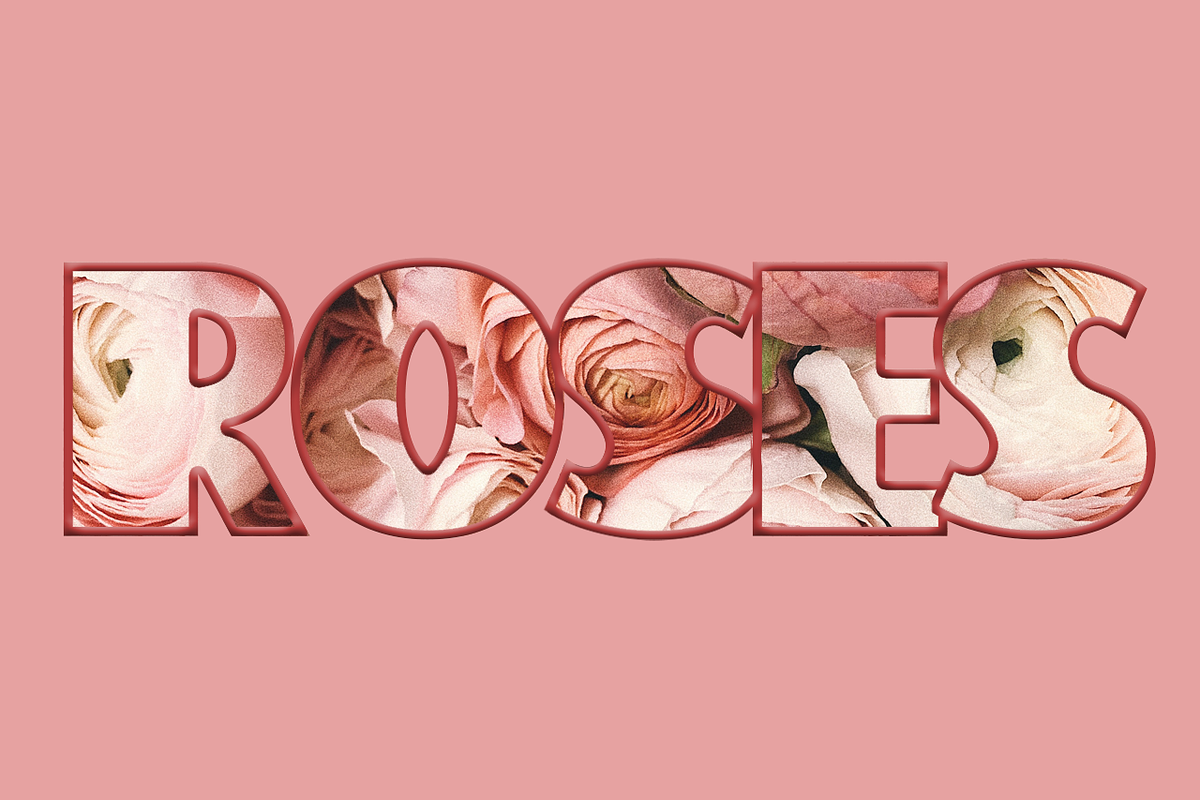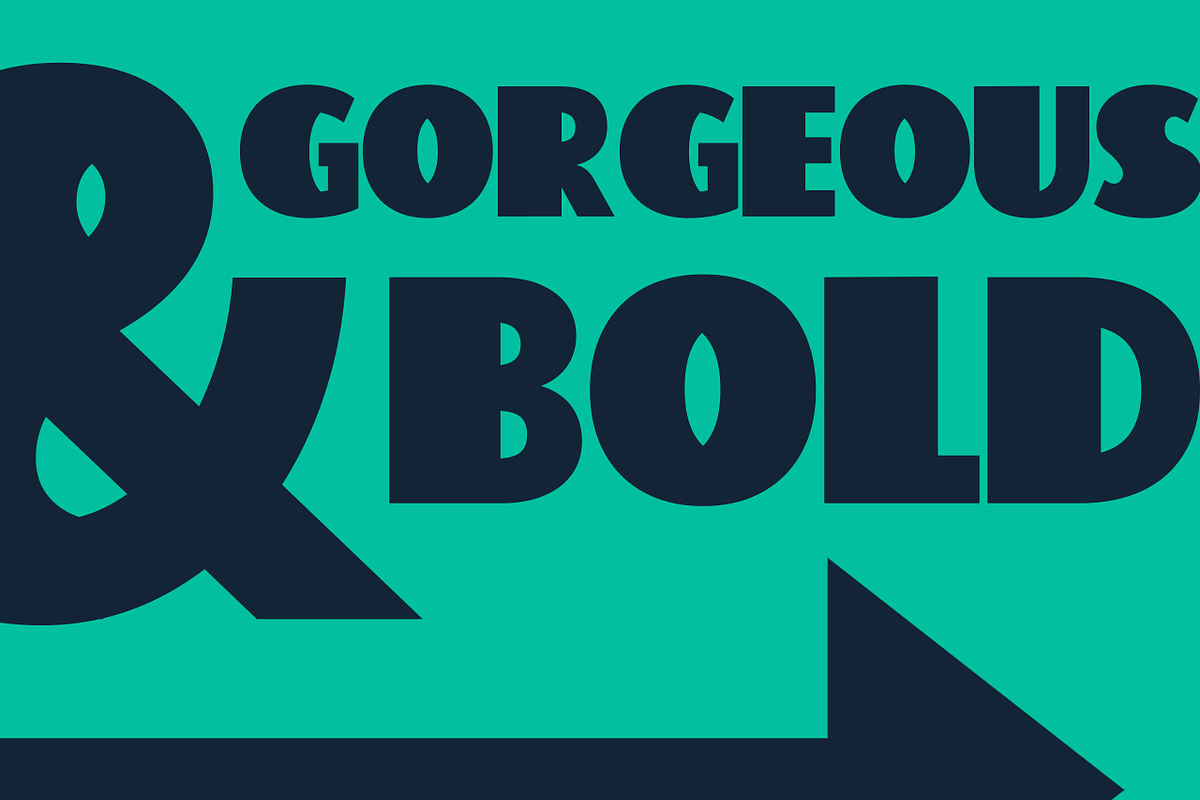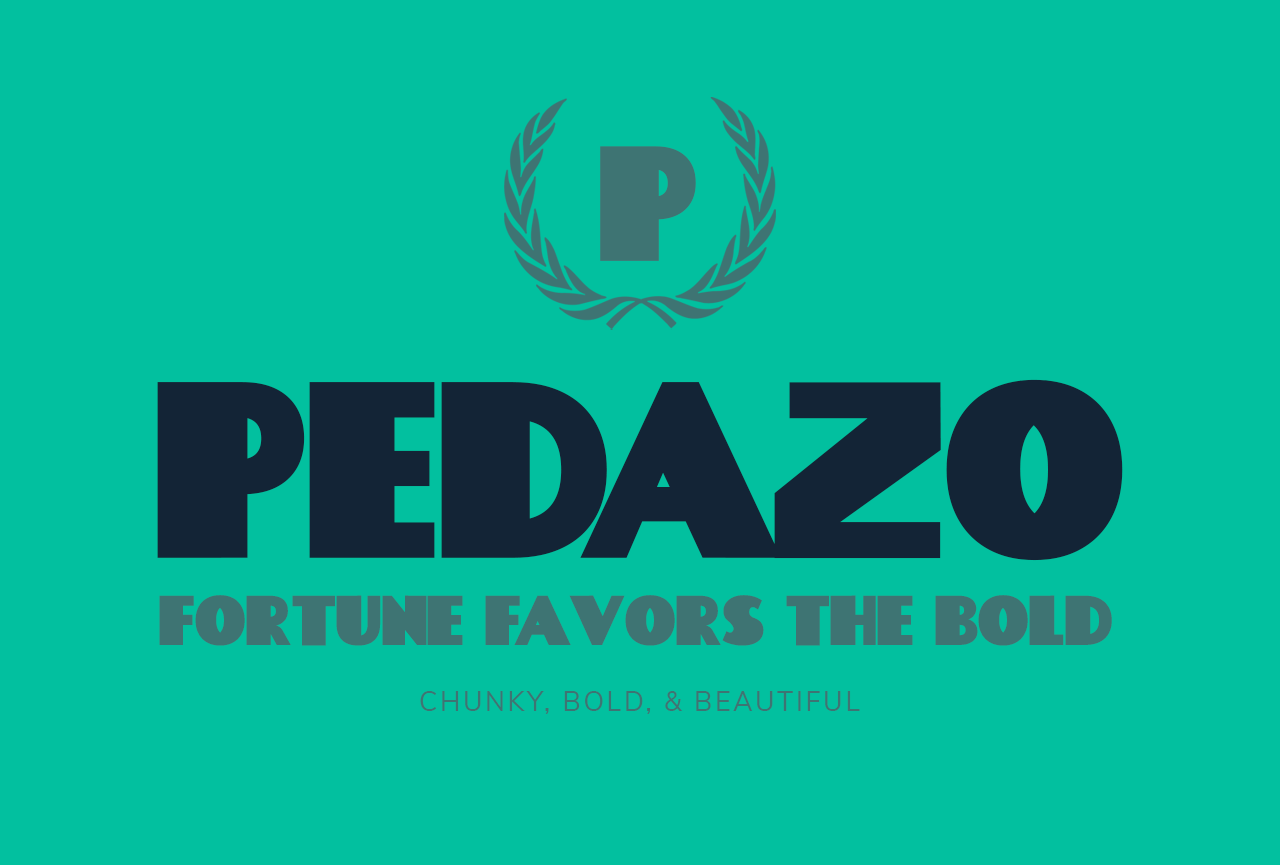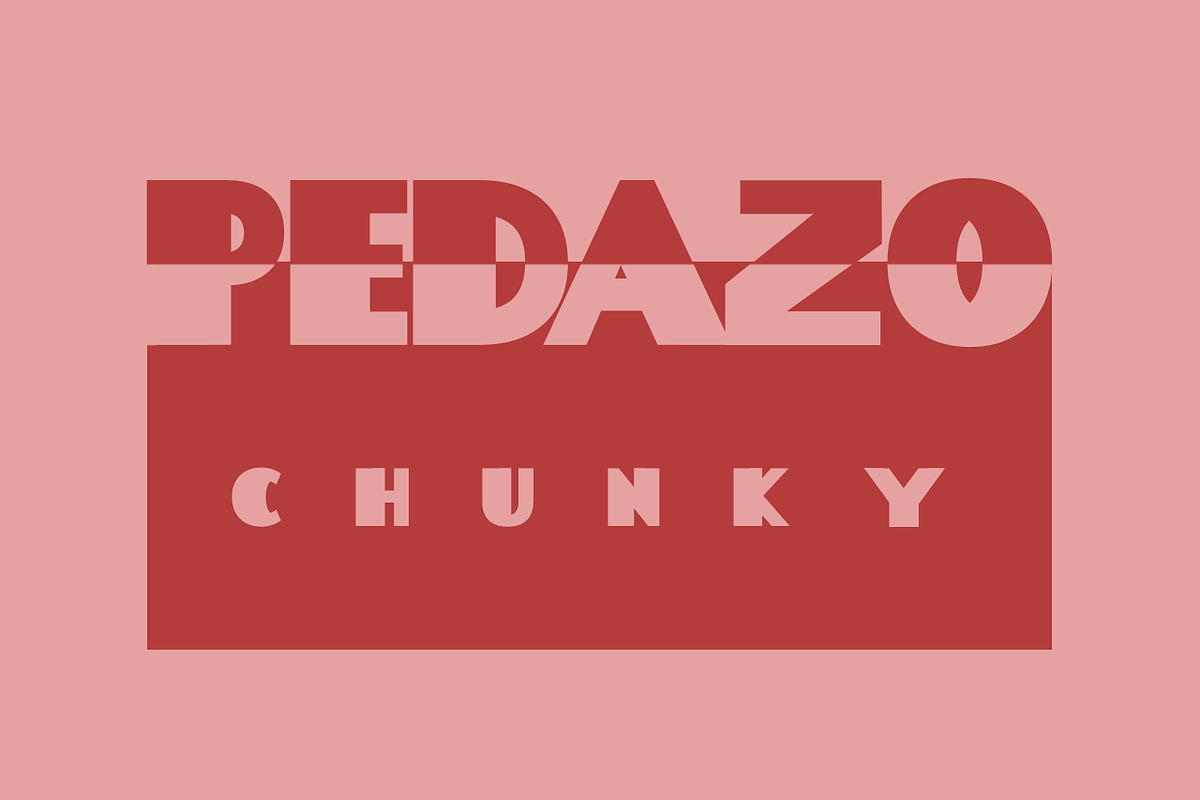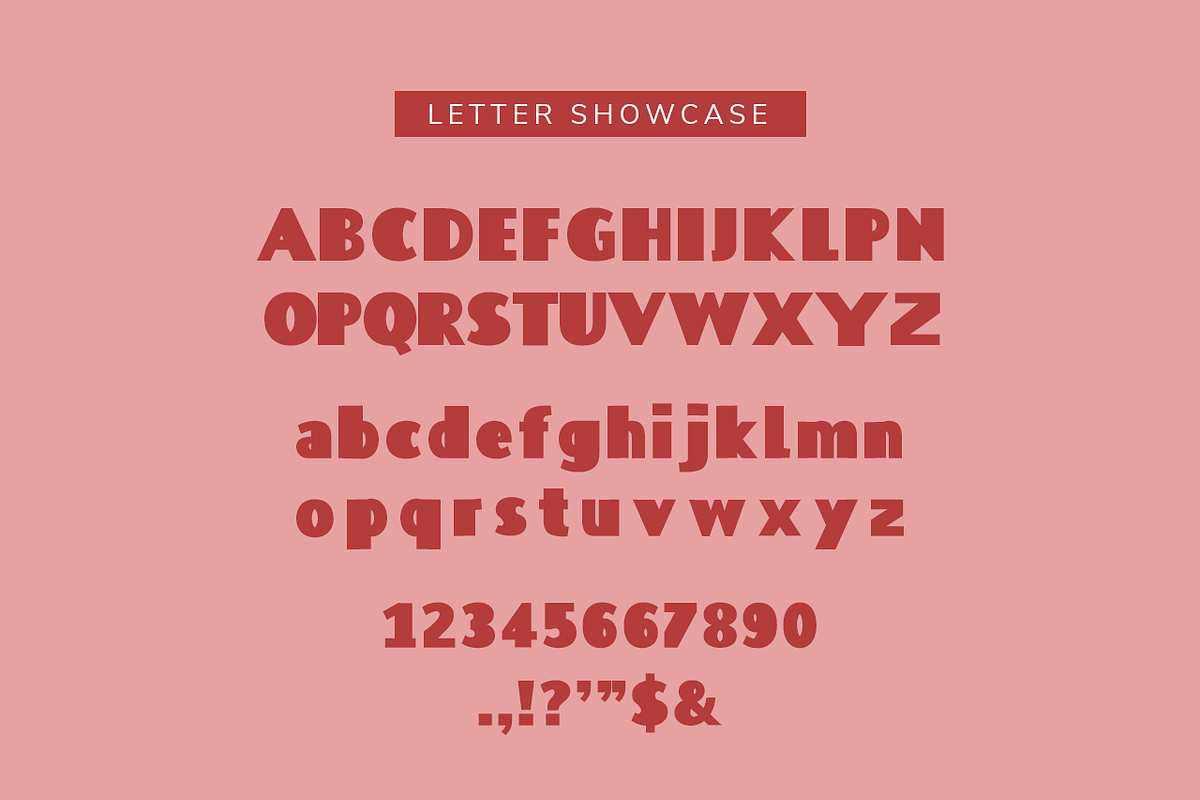
Pedazo Font
Font includes upper and lowercase versions. To be used for logos, type, headlines, clothing, covers, & posters.
Comes with feature :
Uppercase Lowercase Number, Punctuation And Symbols